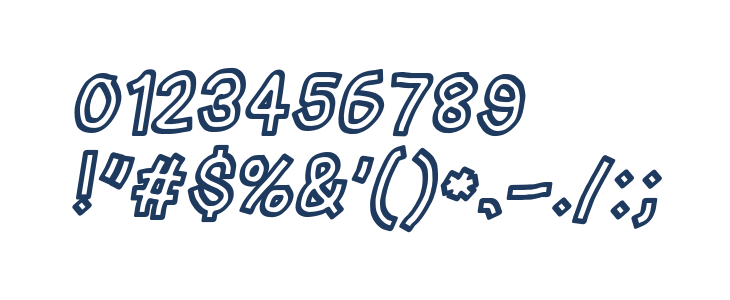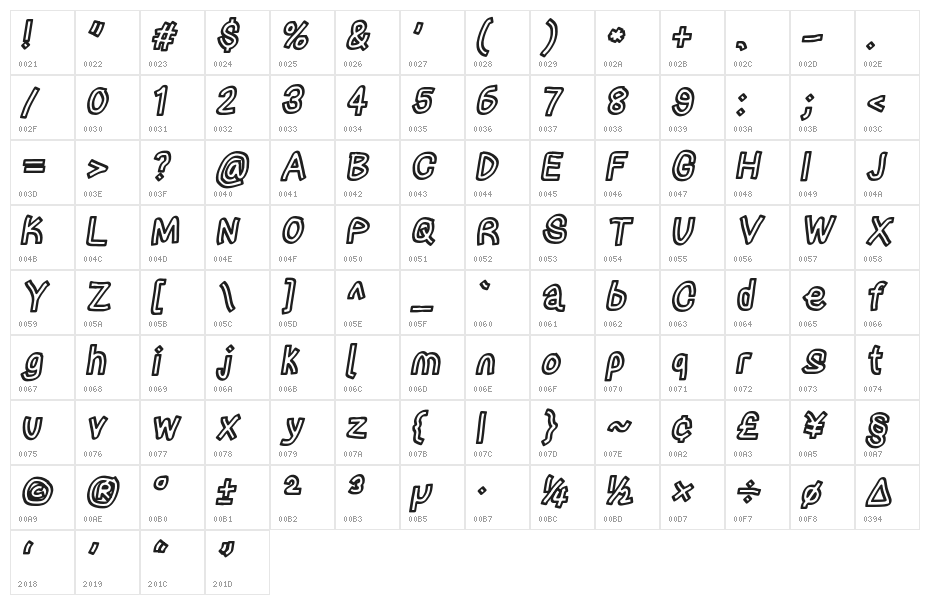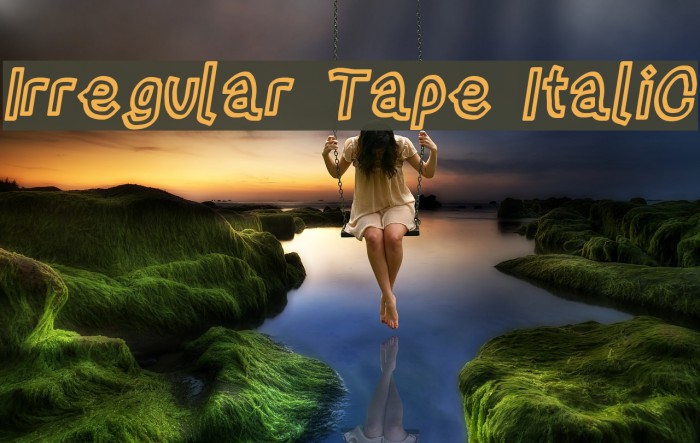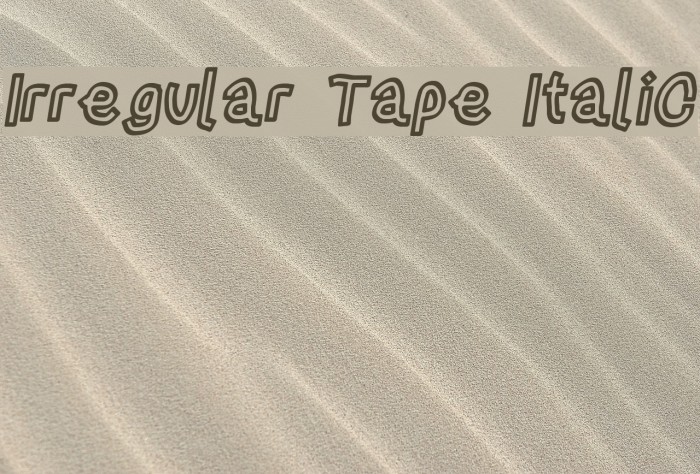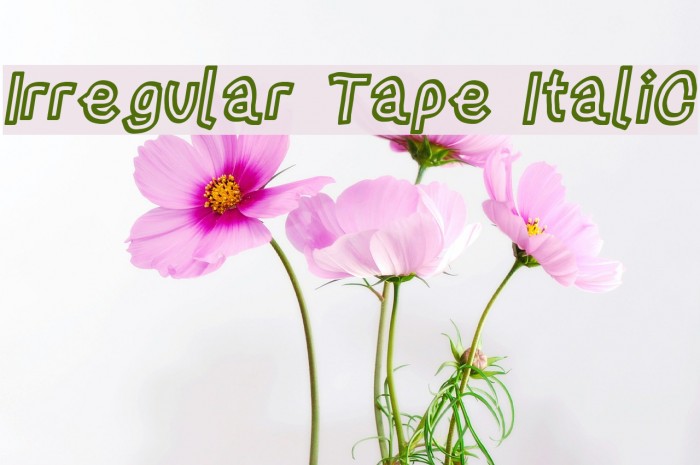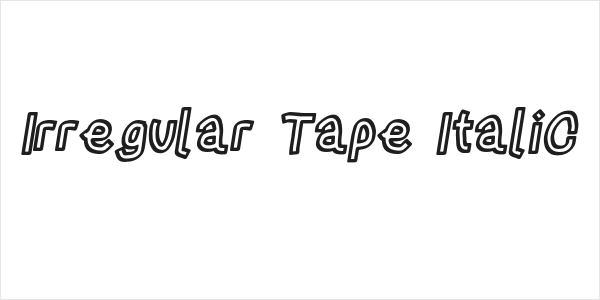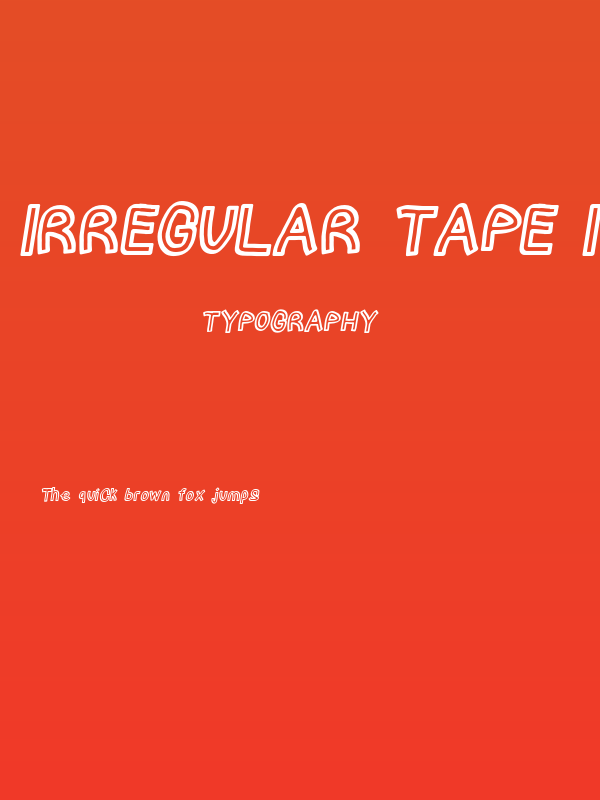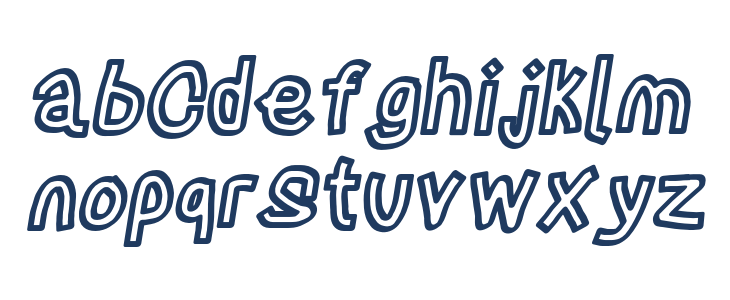
Irregular Tape Italic Font
Irregular Tape Italic Description
This font features a playful and dynamic style with a hand-drawn appearance. Each character is outlined, giving it a bold and striking look. The irregular shapes and slightly tilted angles add a sense of movement and energy, making it stand out. The uppercase and lowercase letters maintain a consistent style, while the numbers and special characters complement the overall design. This font is perfect for projects that require a fun and informal touch, such as posters, children's books, or creative branding.
| Overall Style | Playful, Dynamic, Hand-drawn |
| Proposed Projects | Ideal for posters, children's books, creative branding, and playful designs. |